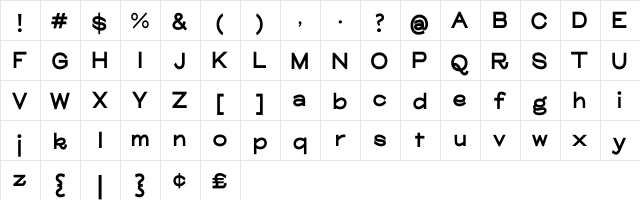
Glora Black Regular
Design Context for Glora Black Typeface
Glora Black is a composed and adaptable typeface that performs quietly and consistently across a wide range of design contexts.